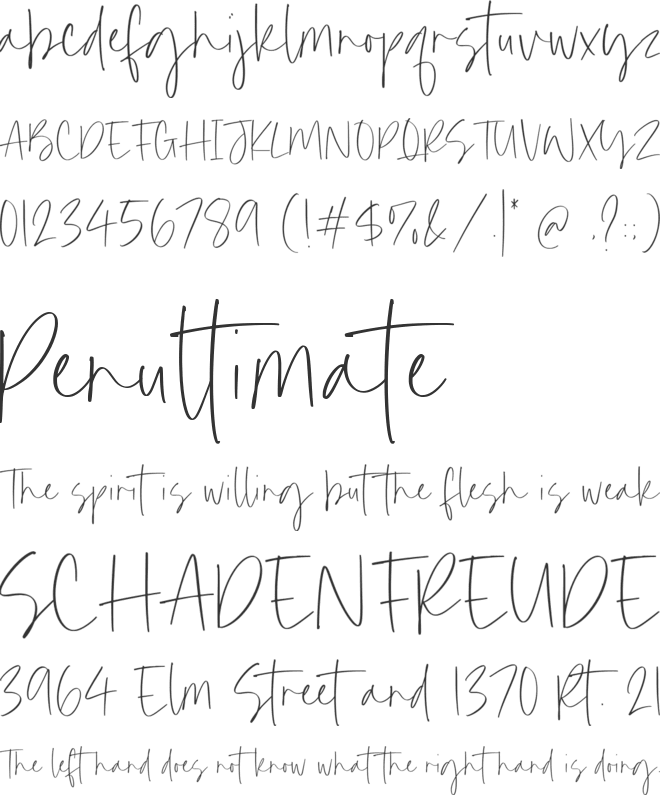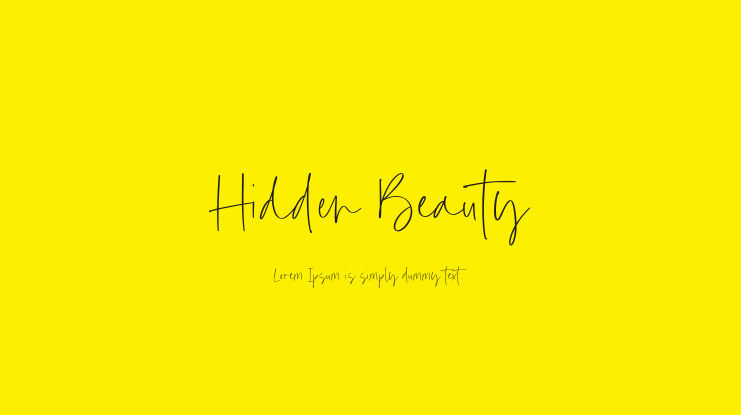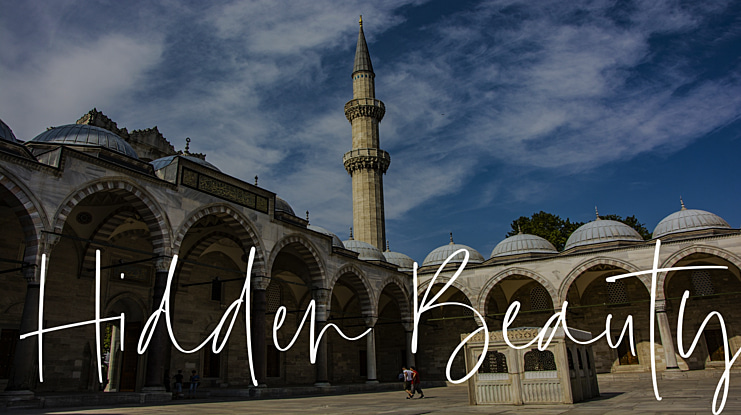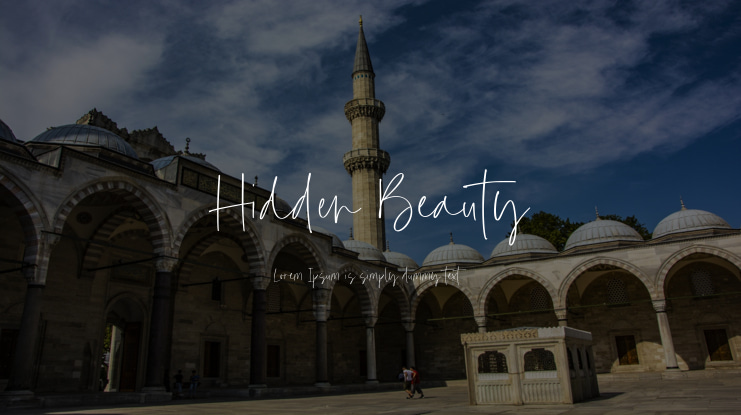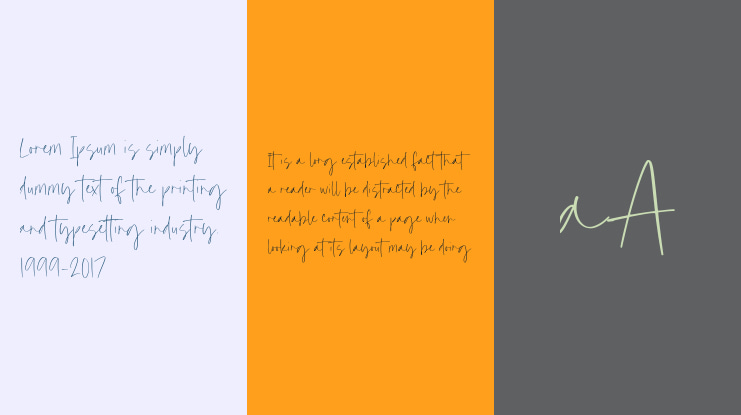
Proudly Present Hidden Beauty
Hidden Beauty is a Handwritten script font that is modern and fresh, and will bring a warm and inviting feel to your business. Take advantage of the fonts and experience the magic for yourself.
Hidden Beauty is perfect for product packaging, branding project, megeenazine, social media, wedding, or just used to express words above the background.
-Full Set of standard alphabet and punctuation
– Hidden Beauty also multilingual support.
– Ligature and Swash